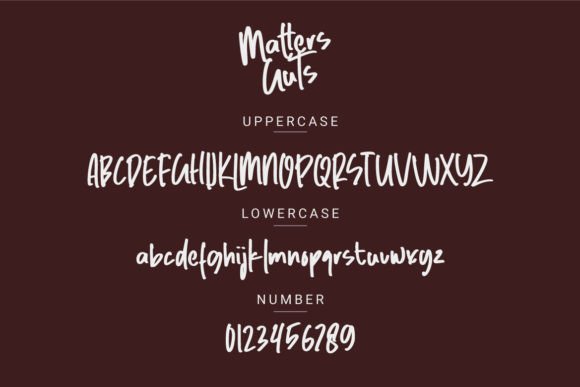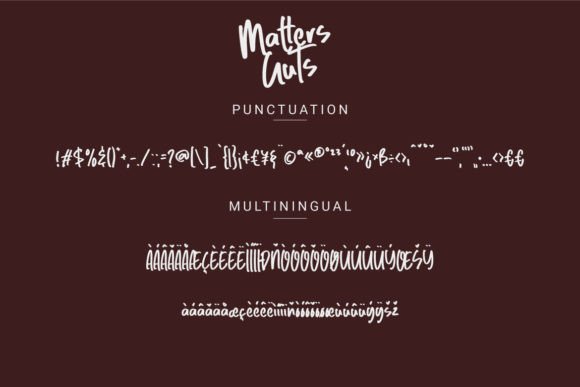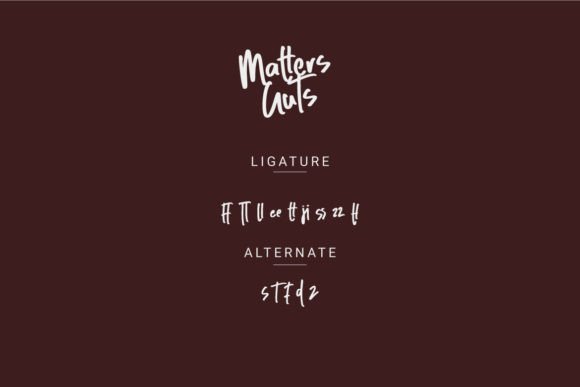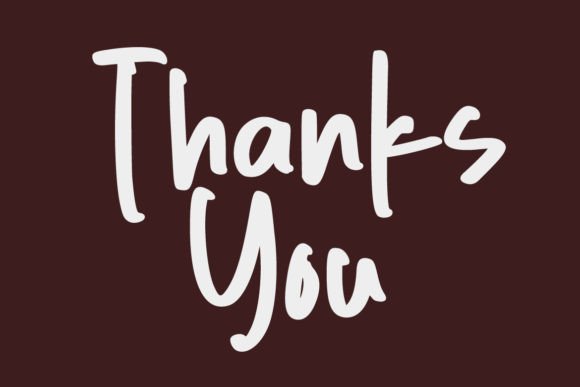
Introduction to Matters Guts Font Font
Matter Guts is a modern font that exudes a bold, confident, and slightly edgy aesthetic.
Its thick, irregular strokes and varying letter heights give it a handmade, almost graffiti-like quality The overall tone of the font is assertive, attention-grabbing, and contemporary.
Key Features of Matters Guts Font Font